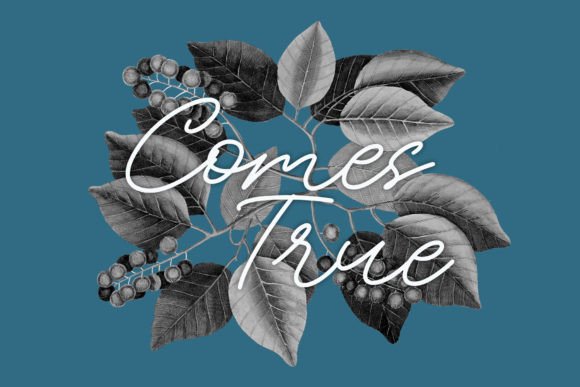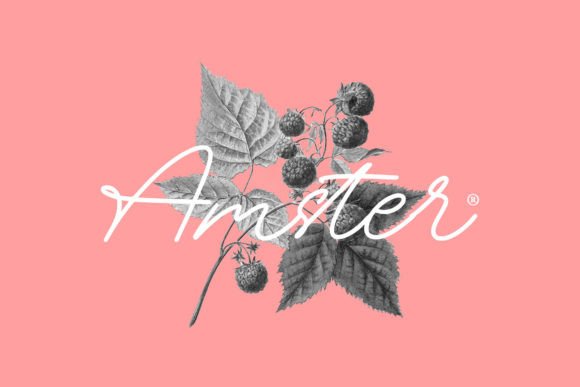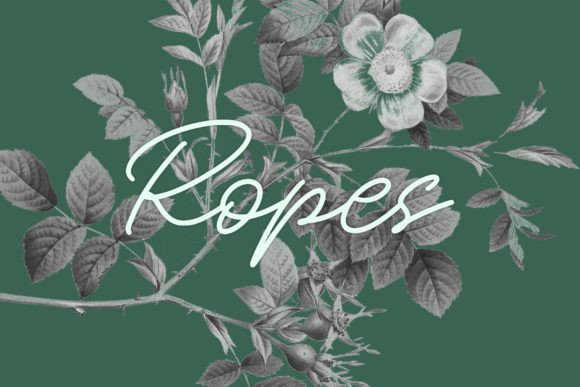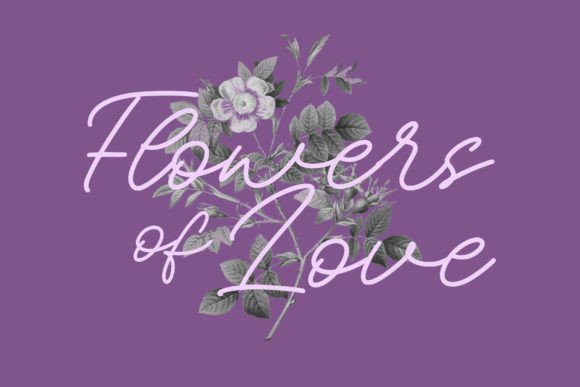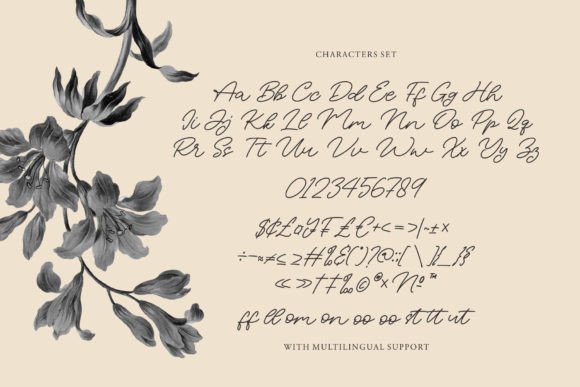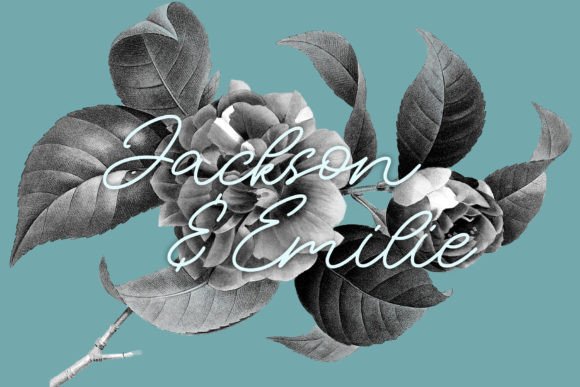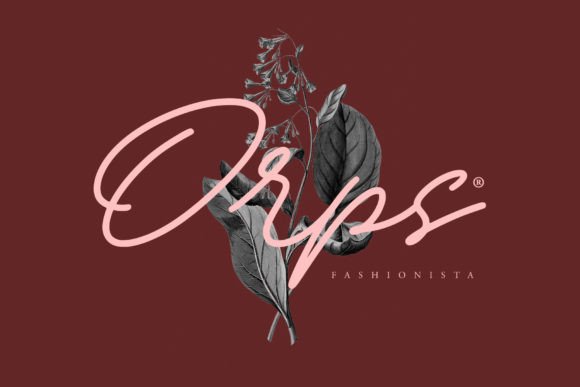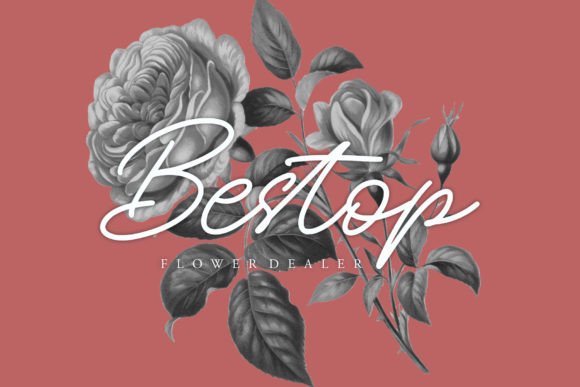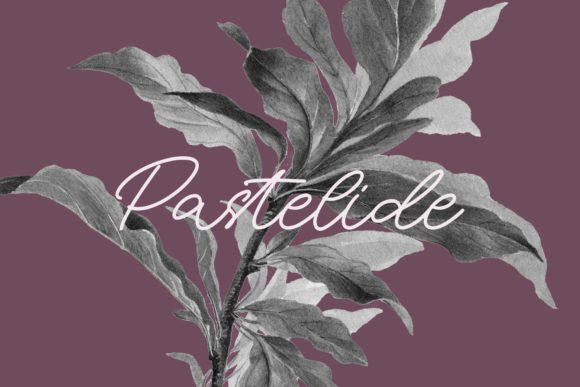
Siost Quicker Font
About Siost Quicker Font Download
The Siost Quicker Font Download is a simple and unique monoline script designed to add personality and charm to any project. With its smooth strokes and modern-classic appeal, this typeface combines fun handwritten qualities with professional versatility. Because of its elegant yet approachable design, Siost Quicker is perfect for both print and digital work.
A Monoline Script with Unique Style
Siost Quicker blends contemporary style with classic influences. Unlike ordinary typefaces, it feels dynamic while keeping a clean and balanced look. As a result, this Siost Quicker typeface is excellent for creative projects that need both style and clarity.
Perfect for Headlines and Posters
Large text often requires a font that is bold and stylish. The Siost Quicker Font was purposely crafted for big point sizes, making it perfect for billboards, posters, and magazine covers. Moreover, it doesn’t lose its charm in smaller formats, which makes it highly versatile.
Branding and Logo Design with Siost Quicker
Typography is central to brand identity. The Siost Quicker handwritten font brings elegance and creativity to business logos, packaging, and promotional materials. In addition, it gives brands a distinct personality while keeping designs readable and modern.
Elegant Use in Websites and Magazines
This font is also ideal for digital layouts. For example, blog headers, website banners, and magazine titles all benefit from its flowing lines. The Siost Quicker Font Download adds a touch of sophistication that captures readers’ attention, whether online or in print.
Apparel, T-Shirts, and Creative Projects
Designers often look for fonts that can stand out in merchandise. The Siost Quicker script font adapts beautifully to t-shirts, event flyers, and social media graphics. Therefore, it is a reliable choice for both personal and commercial projects.
Why Designers Choose Siost Quicker Typeface
Many handwritten fonts become hard to read at small sizes, but Siost Quicker was designed to stay clear and stylish. The Siost Quicker handwritten script balances beauty and practicality, which makes it appealing for both professional designers and hobbyists.